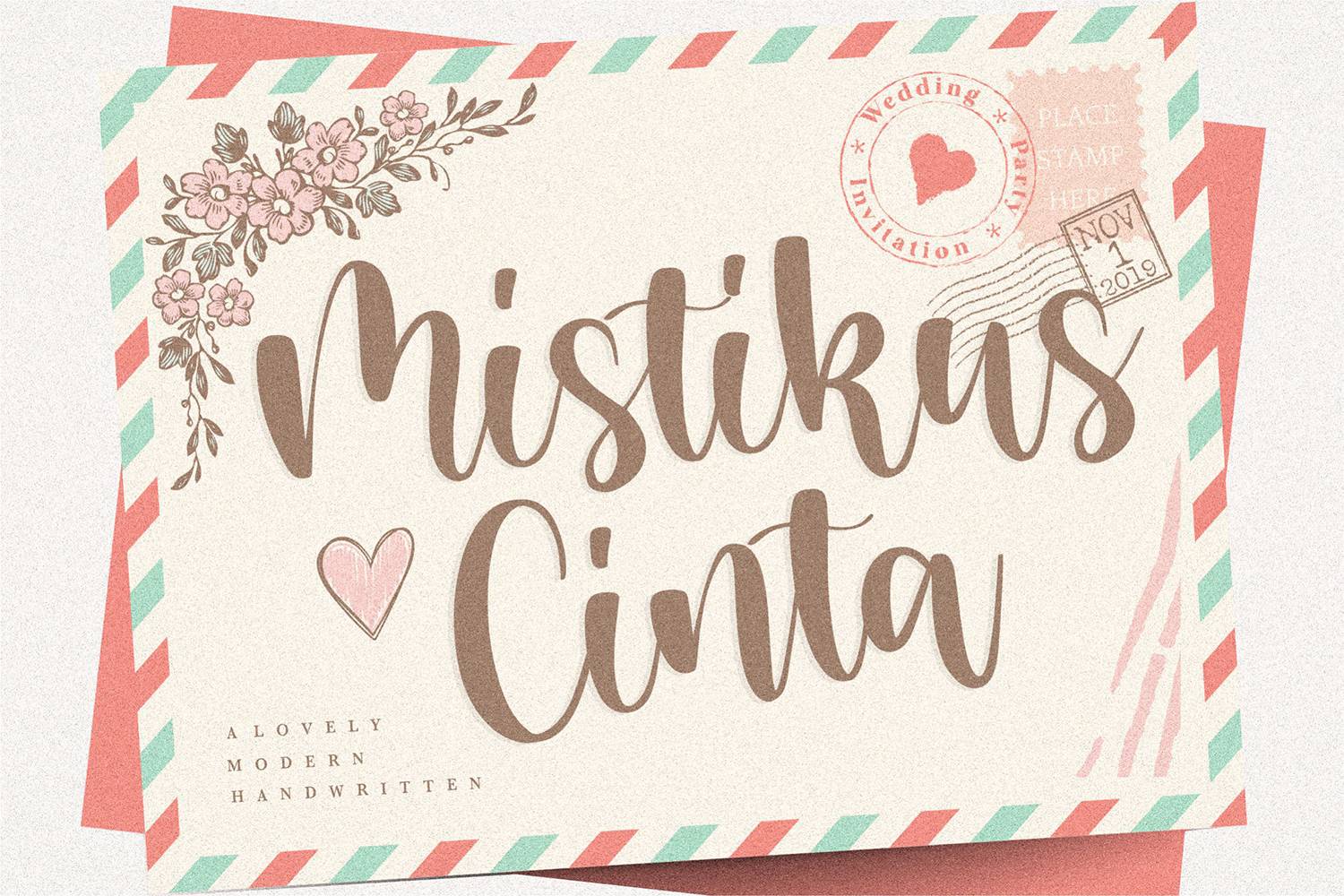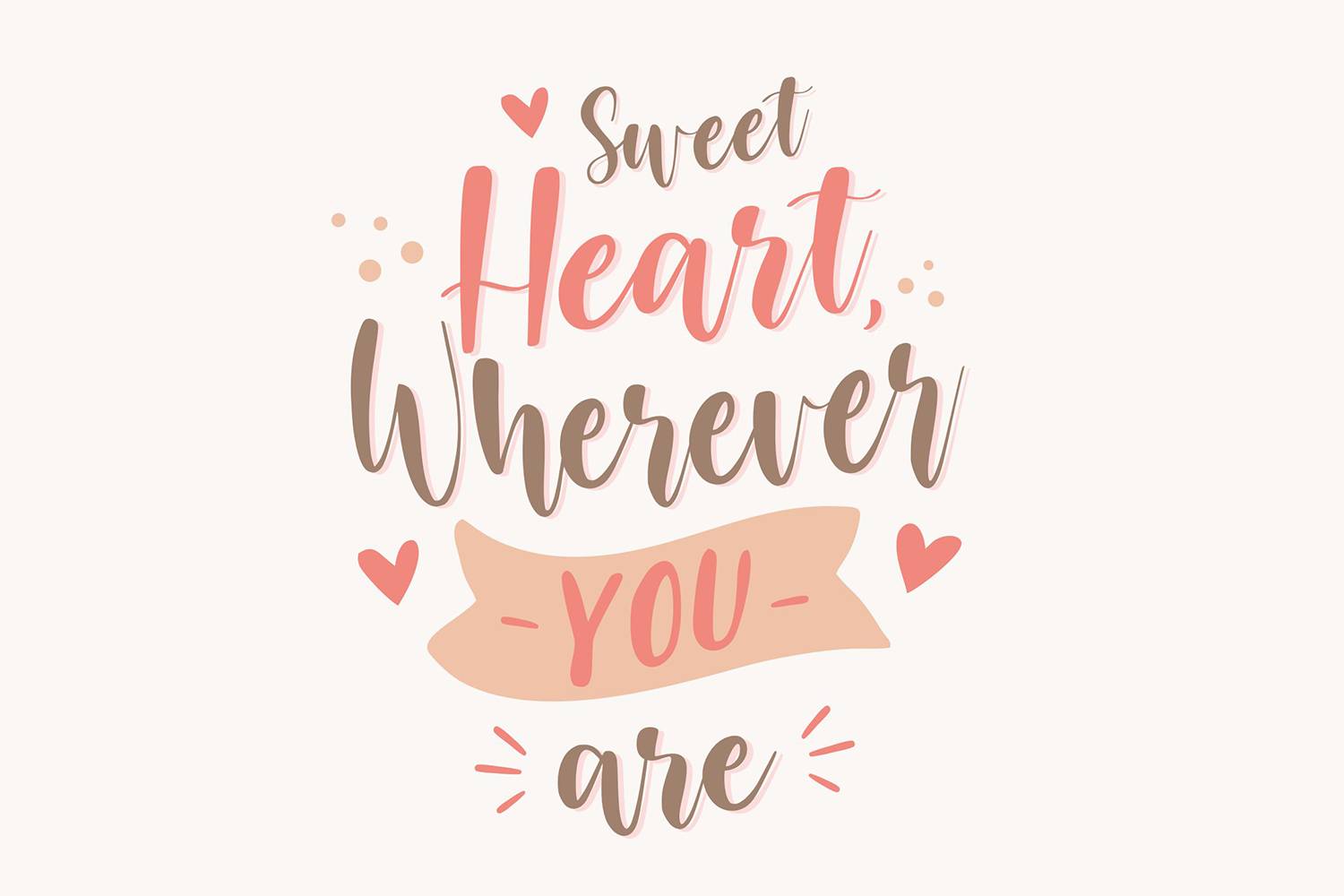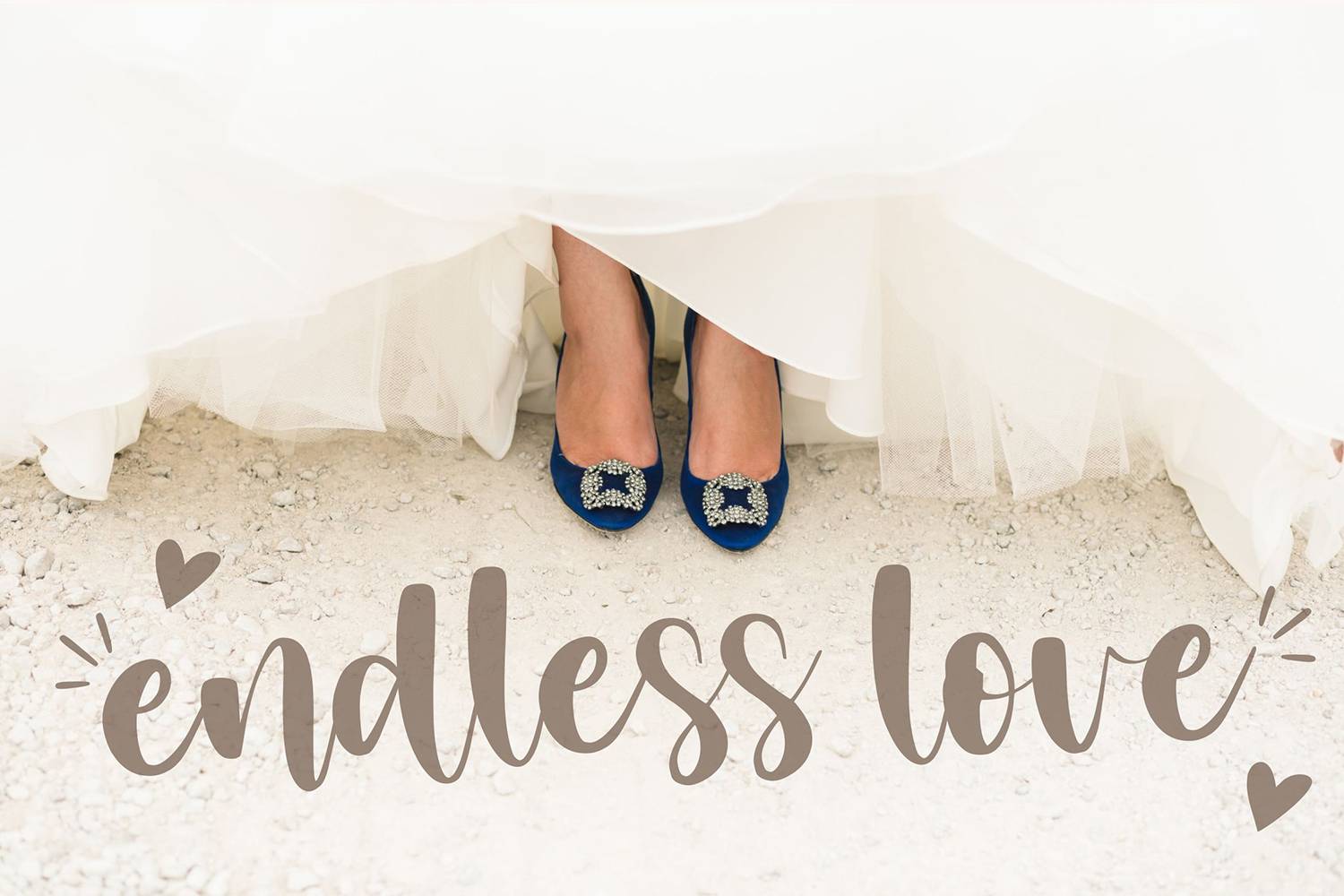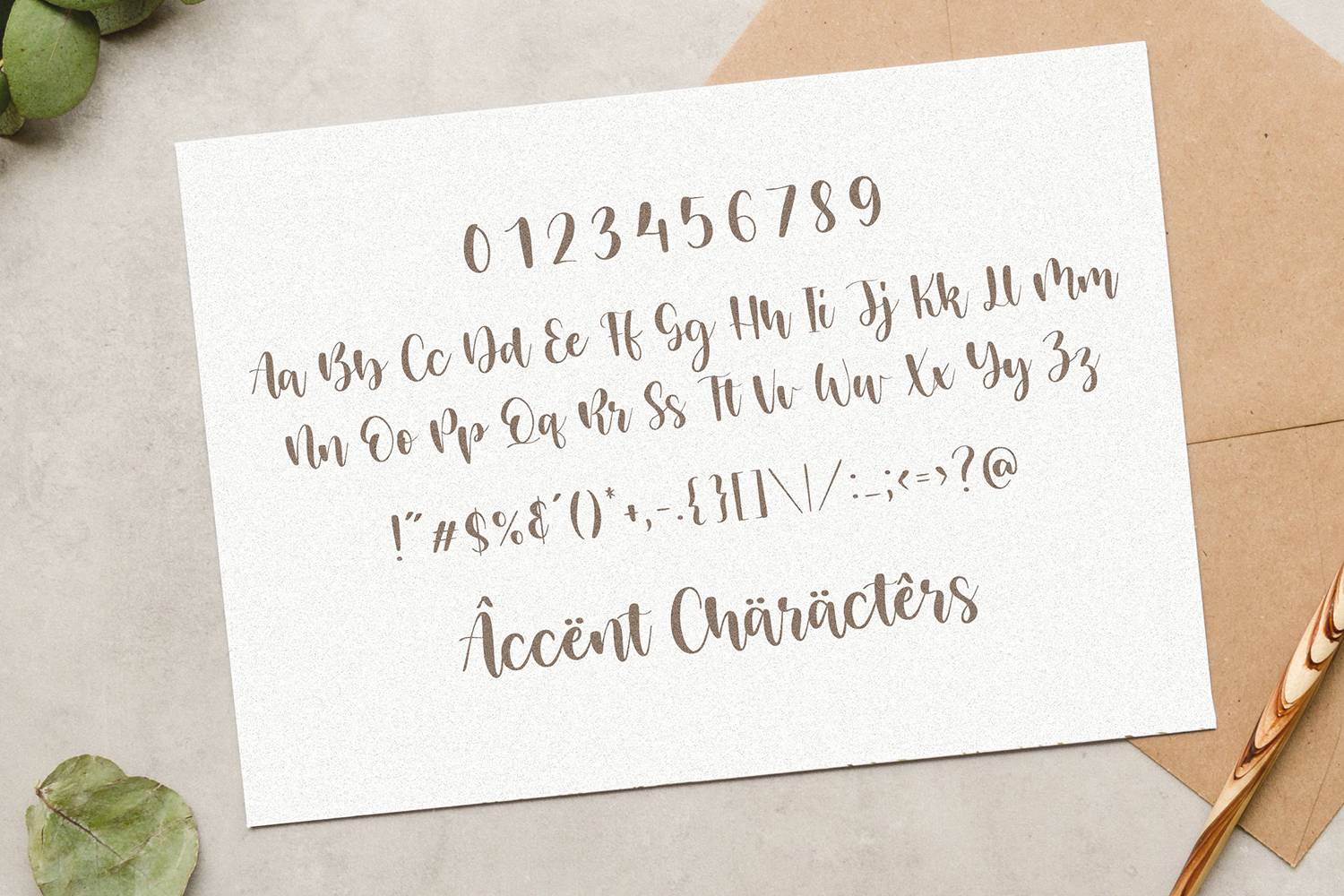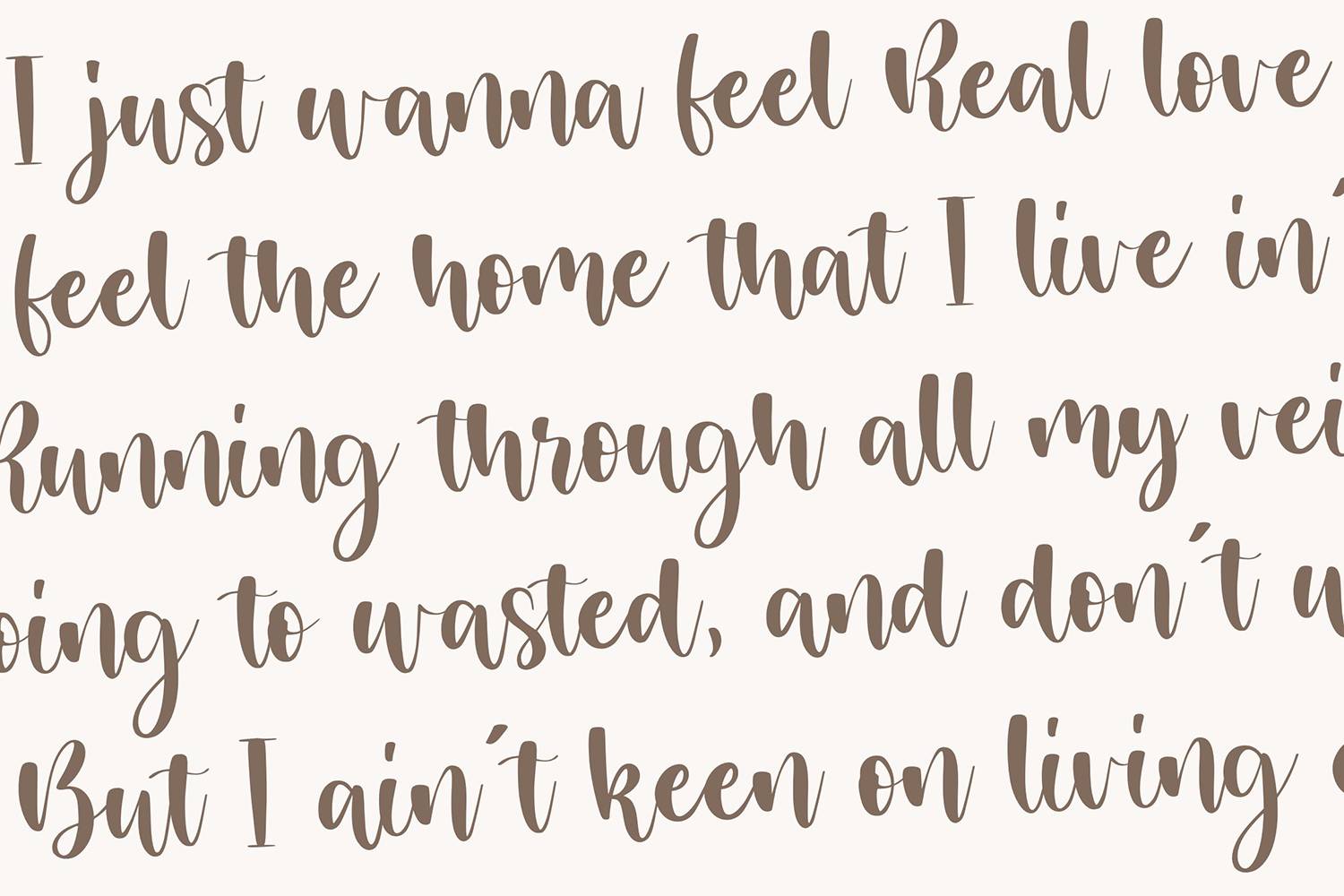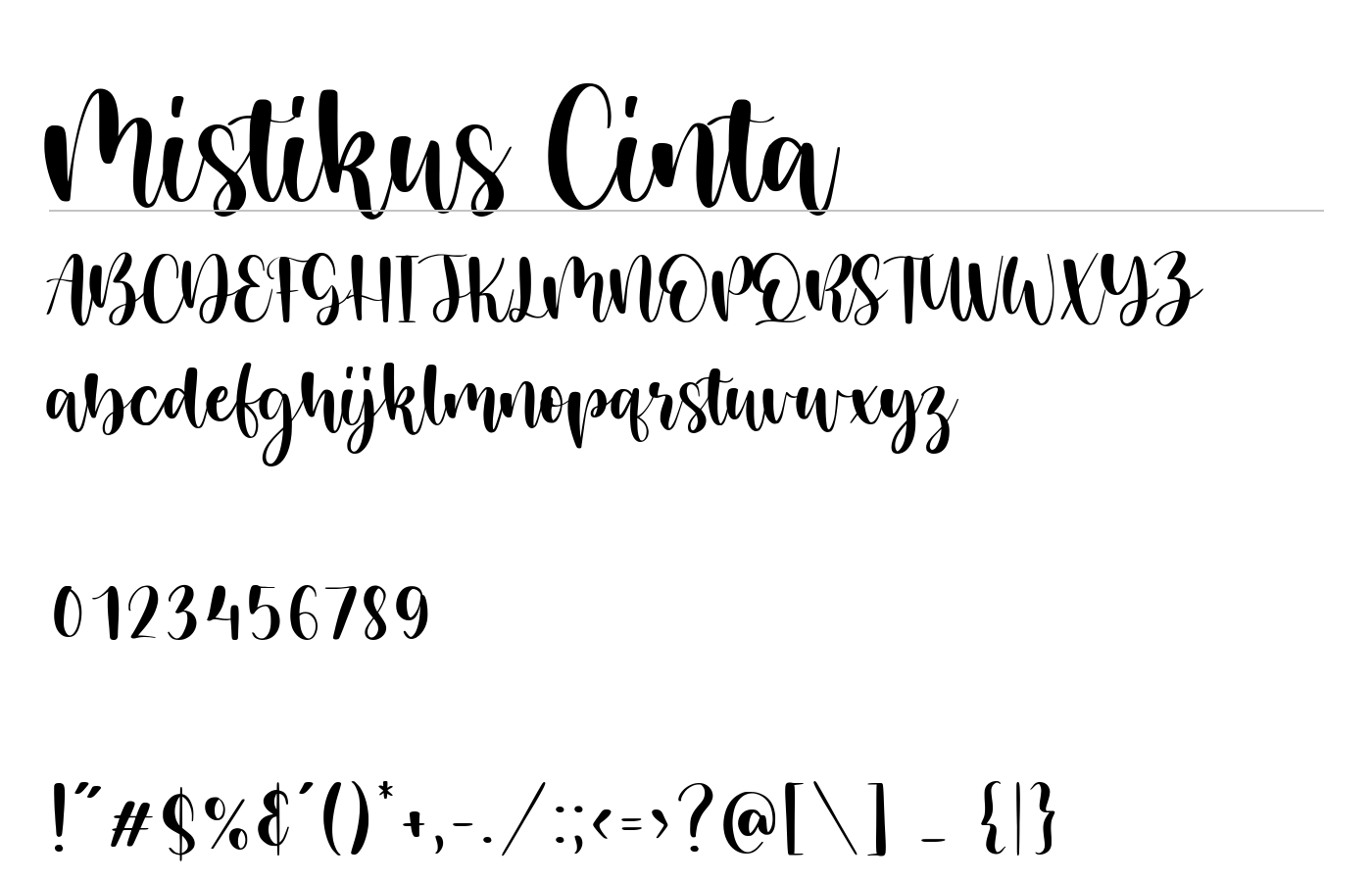
Mistikus Cinta is an elegant script font with a playful yet sophisticated feel, featuring flowing, brush-like strokes and a balanced mix of thick and thin lines. Its lively, hand-lettered style with rounded letterforms and smooth curves makes it perfect for creative branding, invitations, and headlines that want to convey warmth and charm. This font works well where a personal, artistic touch is desired, adding personality and flair to both digital and print designs.
Mistikus Cinta Font
About Mistikus Cinta Font